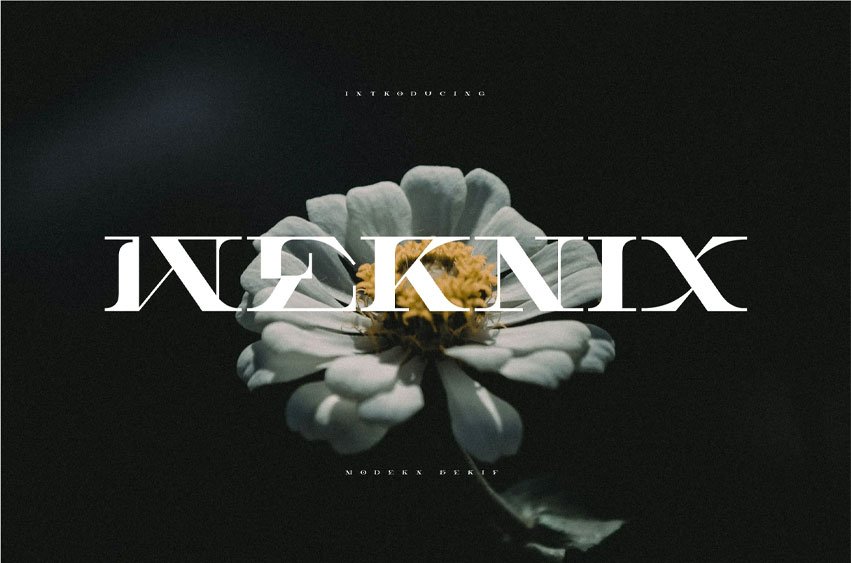
Wernix Font
Wernix Font is a modern serif font designed with a perfect balance between contemporary elegance and timeless sophistication. With its sharp serifs and clean lines, it offers a sleek, stylish appearance suitable for high-end branding, editorial designs, and any project that demands a refined, yet modern touch.
Wernix embodies both tradition and innovation, making it the ideal choice for projects that need to make a strong and polished statement.